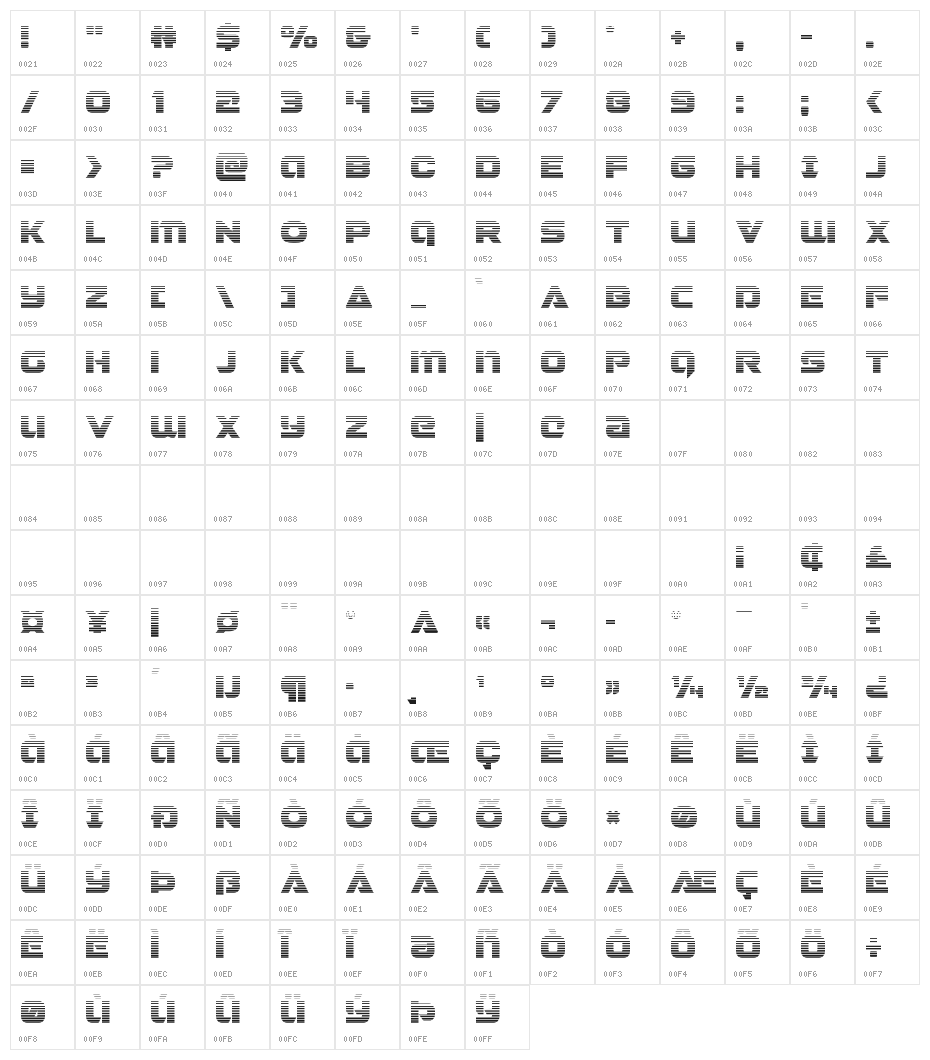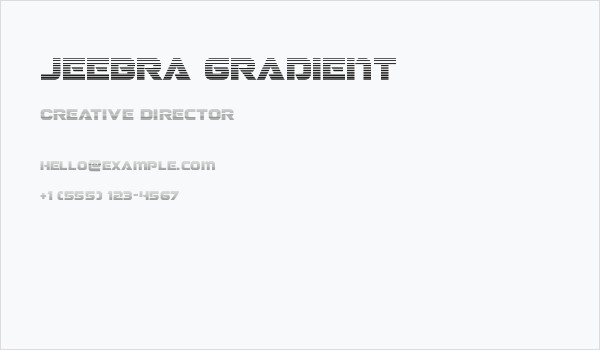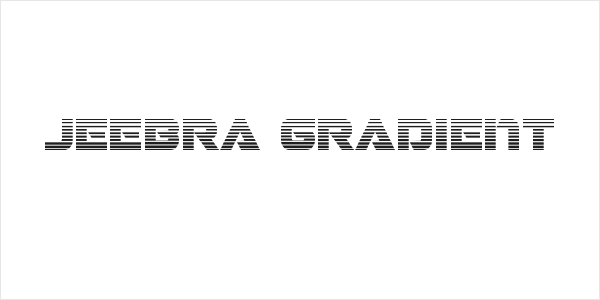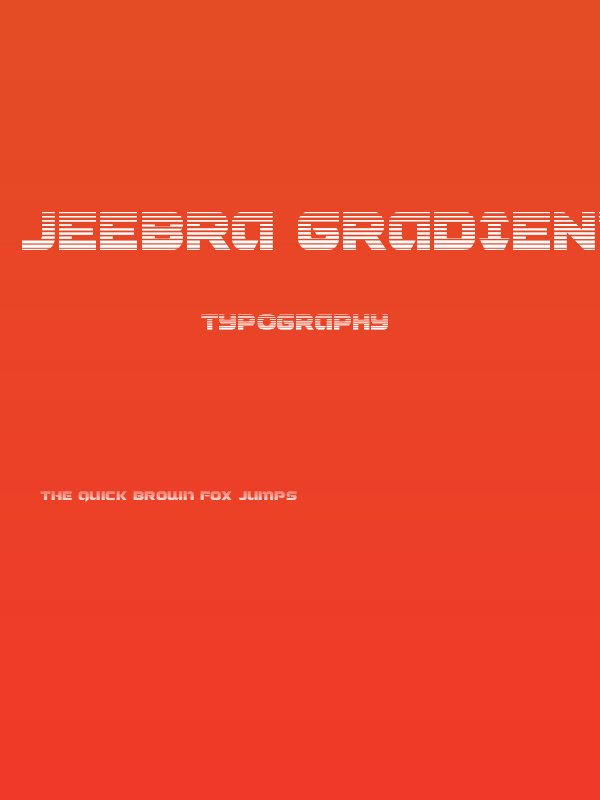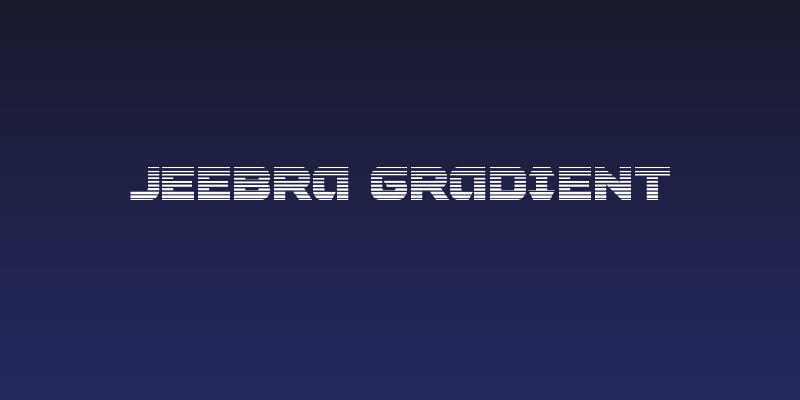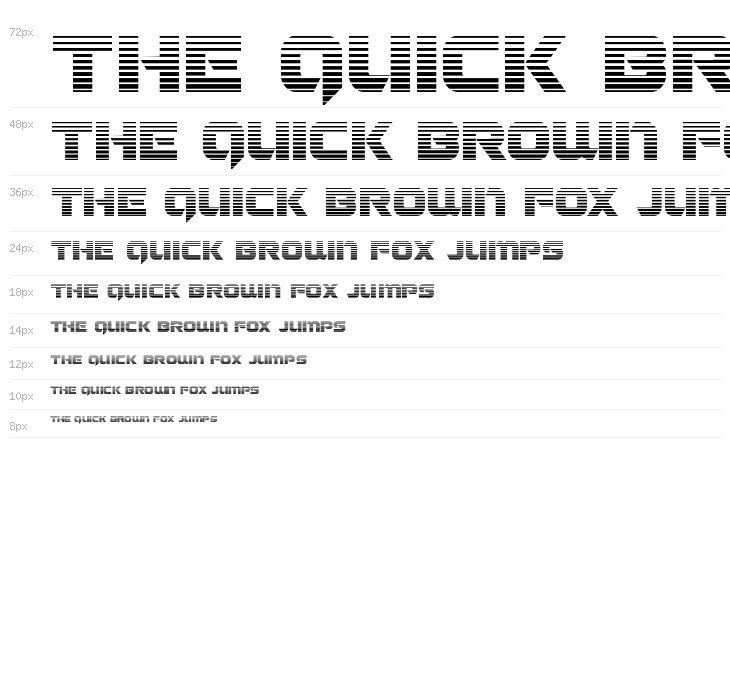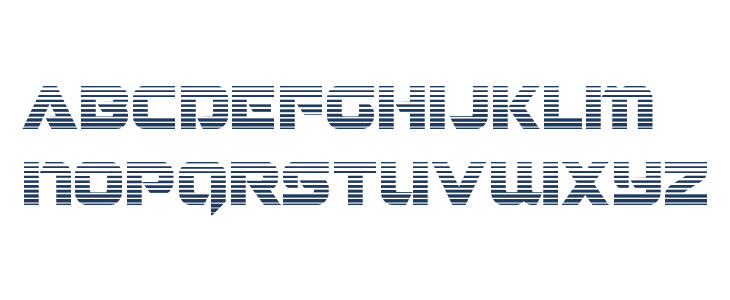
Jeebra Gradient Font
Jeebra Gradient Description
This font features a bold, decorative style with a unique striped pattern running horizontally through each character. The uppercase and lowercase letters, as well as the numerals and special characters, maintain a consistent design that emphasizes a modern, futuristic aesthetic. The lines within each character create a sense of movement and energy, making it stand out in any design. The font's geometric structure is balanced with its playful line work, offering a distinctive look that is both eye-catching and versatile.